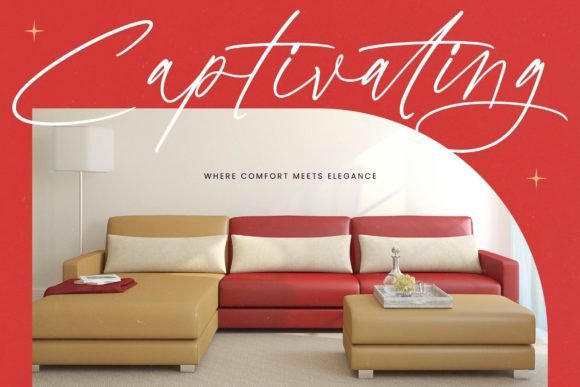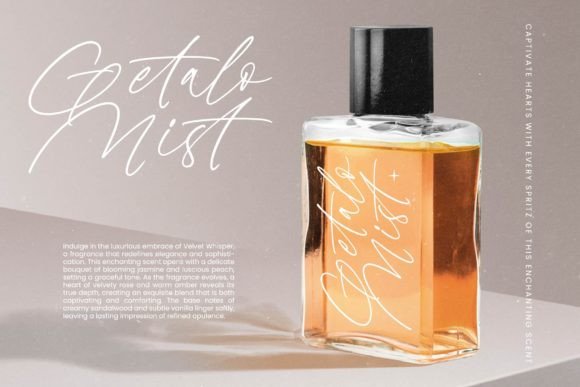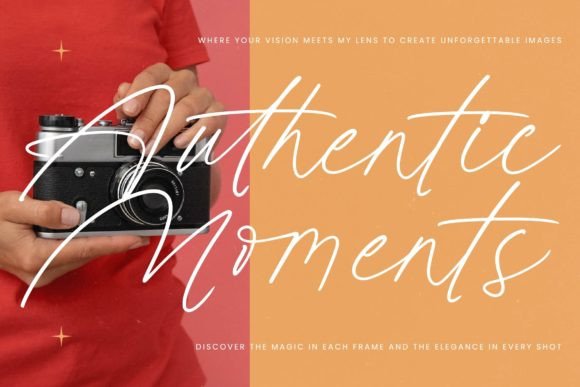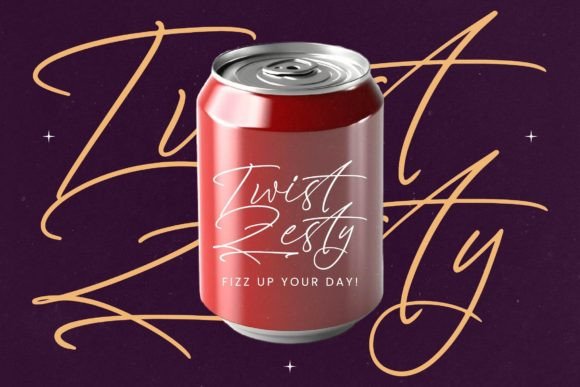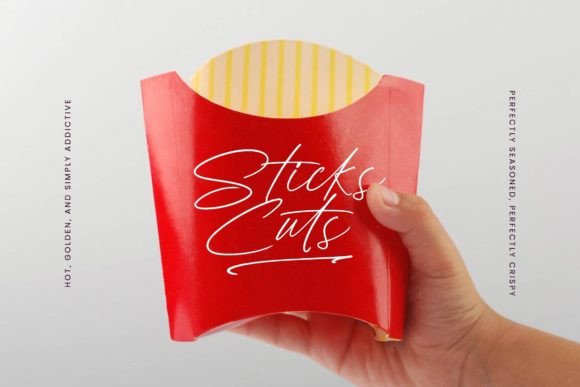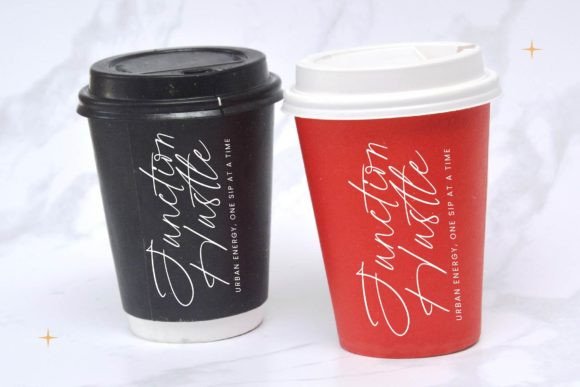
Introduction to Histone Sites Font
As you sit at your desk, surrounded by scattered papers and half-finished design projects, you stumble upon the perfect font for your latest creative endeavor. The moment you type out your first sentence in Histone Sites Font, you know you’ve found something special. This stylish handwritten script font exudes elegance and charm, its fluid strokes and natural flow creating a captivating, sophisticated look that elevates your design to new heights.
Whether you’re working on a branding project, crafting social media graphics, or creating invitations for a special occasion, Histone Sites Font is the perfect design resource to add a personal touch. Its high quality and versatility make it an invaluable asset for designers looking to create unique and captivating content. And the best part? This beautiful font is available for free download, allowing you to add it to your design arsenal without breaking the bank.
Key Features of Histone Sites Font
- High-quality, vector-based design for seamless scaling and crisp rendering in any creative project.
- Unique, modern design that sets your creative project apart from the ordinary, making it an ideal choice for designers seeking a distinctive look.
- Designed to work well in a variety of applications, including digital displays, print materials, and web design elements.
Honest Review: Histone Sites Font
I recently came across the Histone Sites Font and was excited to dive in and see what it had to offer. As a designer, I’m always on the lookout for high-quality fonts that can elevate my creative projects. The Histone Sites Font does not disappoint!
One of the things that stands out about this font is its sleek and modern aesthetic. The clean lines and transparent background make it perfect for a variety of design applications, from digital products to print materials.
- High-quality design: The Histone Sites Font is meticulously crafted with attention to detail, making it perfect for designers who value precision.
- Transparency: The transparent background allows for seamless integration with other design elements.
While the Histone Sites Font is an excellent addition to any designer’s toolkit, there are a few limitations to consider.
- Limited character set: The font may not include all the characters you need for your project.
- Not suitable for all design applications: While the font is versatile, it may not be the best choice for projects that require a more playful or whimsical tone.
Overall, I’m impressed with the Histone Sites Font and would highly recommend it to designers looking for a high-quality, modern font. With its sleek design and transparent background, it’s perfect for a variety of creative projects.
The Histone Sites Font is perfect for creating visually appealing graphics for social media, presentations, and documents. Its high quality and transparent background make it ideal for use in creative projects that require a unique touch.